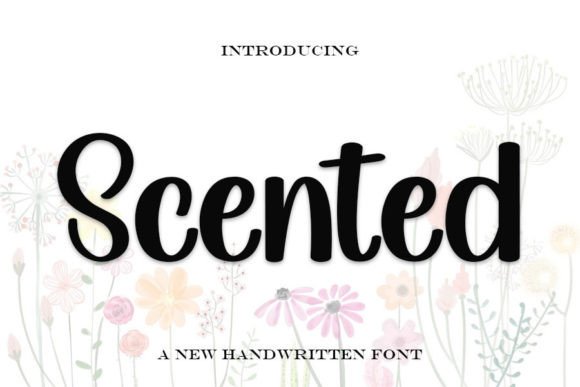
Step into a world of captivating elegance with Scented, a display font family that will whisk you away to a realm of breathtaking aesthetics. This mesmerizing script font, meticulously crafted by the talented putrasyahreza00, beckons you to embark on a creative odyssey like never before.
Immerse yourself in the allure of Scented, a font that echoes the graceful strokes of a master calligrapher, each letter dancing across your screen with effortless charm. Its exquisite design, reminiscent of timeless masterpieces, will elevate your projects to new heights of sophistication.
Unleash your creativity with Scented, a font that seamlessly blends the allure of the past with the dynamism of the present. Its timeless elegance will lend an air of distinction to your designs, while its contemporary touch ensures that your projects remain firmly rooted in the modern era.
With Scented, you hold the key to unlocking a world of design possibilities. Whether you're crafting captivating logos, designing enchanting wedding invitations, or simply adding a touch of elegance to your personal projects, this versatile font will effortlessly transform your vision into a reality.
Experience the magic of Scented, a font that will ignite your imagination and leave you spellbound. Its enchanting aura will captivate your audience, leaving them mesmerized by the beauty of your creations. Embrace the power of Scented and embark on a creative journey that will redefine your design horizons.